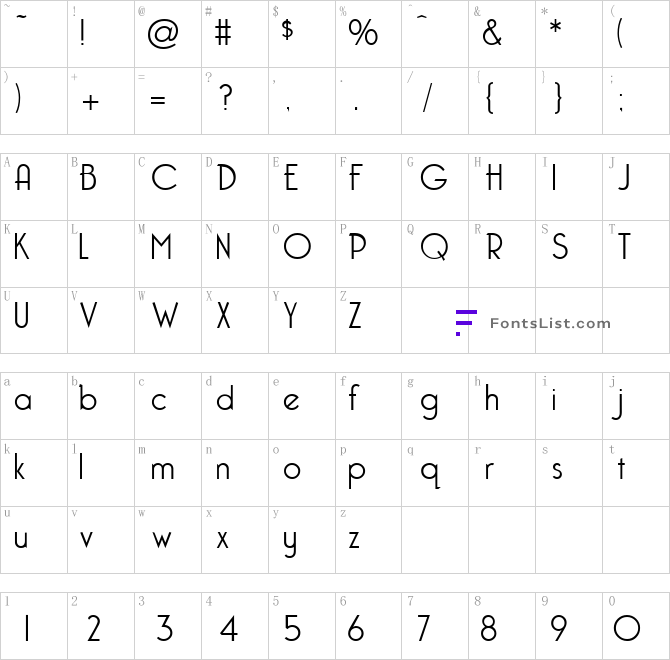
- Font Name:Capone Light
Capone-Light.ttf is a very beautiful artistic font, Capone-Light.ttf is widely used in the design and printing of various books and pictures,Capone-Light.ttf has a strong visual impact,Capone-Light.ttf is a commonly used font in newspapers, magazines and books, and is used in posters, e-commerce Poster design, store design, logo design, font design and other fields.Capone-Light.